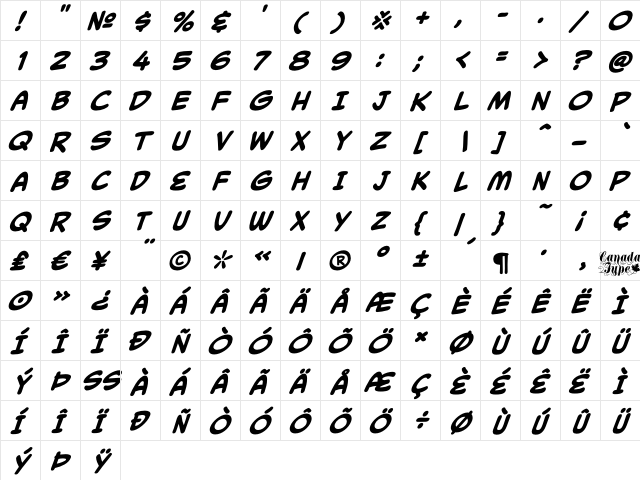
Collector Comic Bold Italic
Design Context for Collector Comic Typeface
Collector Comic has an approachable, lighthearted character — its loose, expressive forms are well-suited to children's content, casual branding, and fun-first design. Its italic angle brings a sense of urgency and motion to the letterforms.
Well-suited to food and beverage brands with personality, educational materials, and fun-forward identities.
Font Pairing: Pairs well with a rounded or humanist sans for body copy, maintaining the friendly tone without relying on Collector Comic to carry extended reading.
Pro Tip: Use Collector Comic at larger display sizes where its expressive character can land. Pair with a clean, simple sans for body copy to maintain readability.